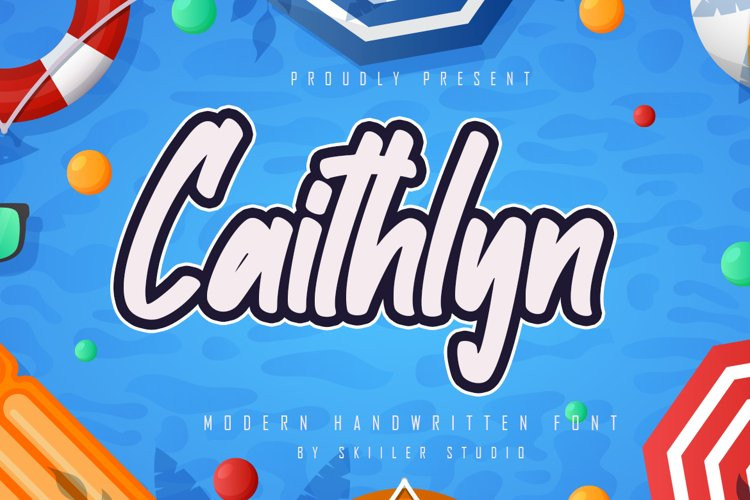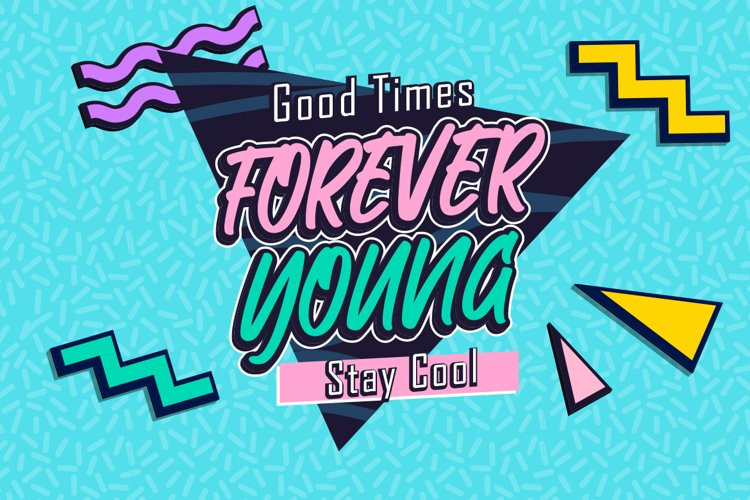
Caithlyn Font
Caithlyn Handwritten Display Font. It looks beautiful on a variety of designs requiring a personalized style, such as wedding invitations, thank you cards, weddings, greeting cards, logos and so on. This font is PUA encoded which means you can access all of the glyphs and swashes with ease!
Caithlyn